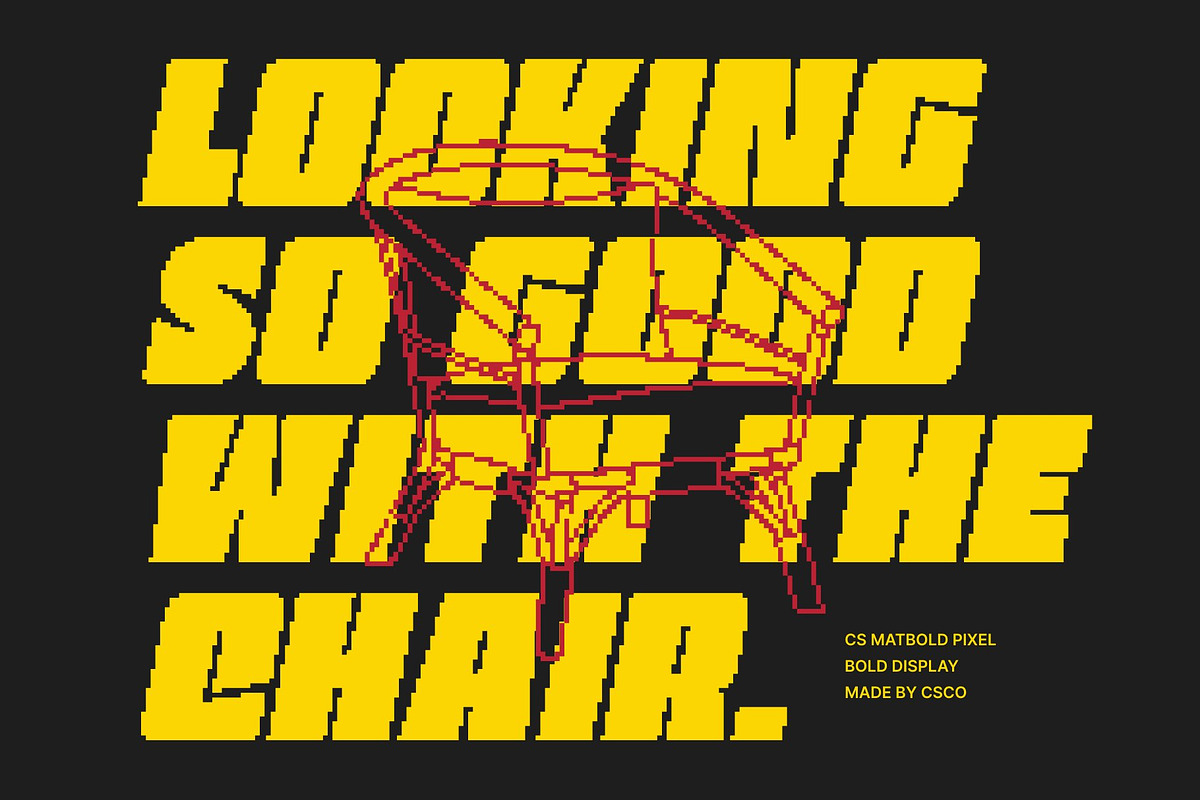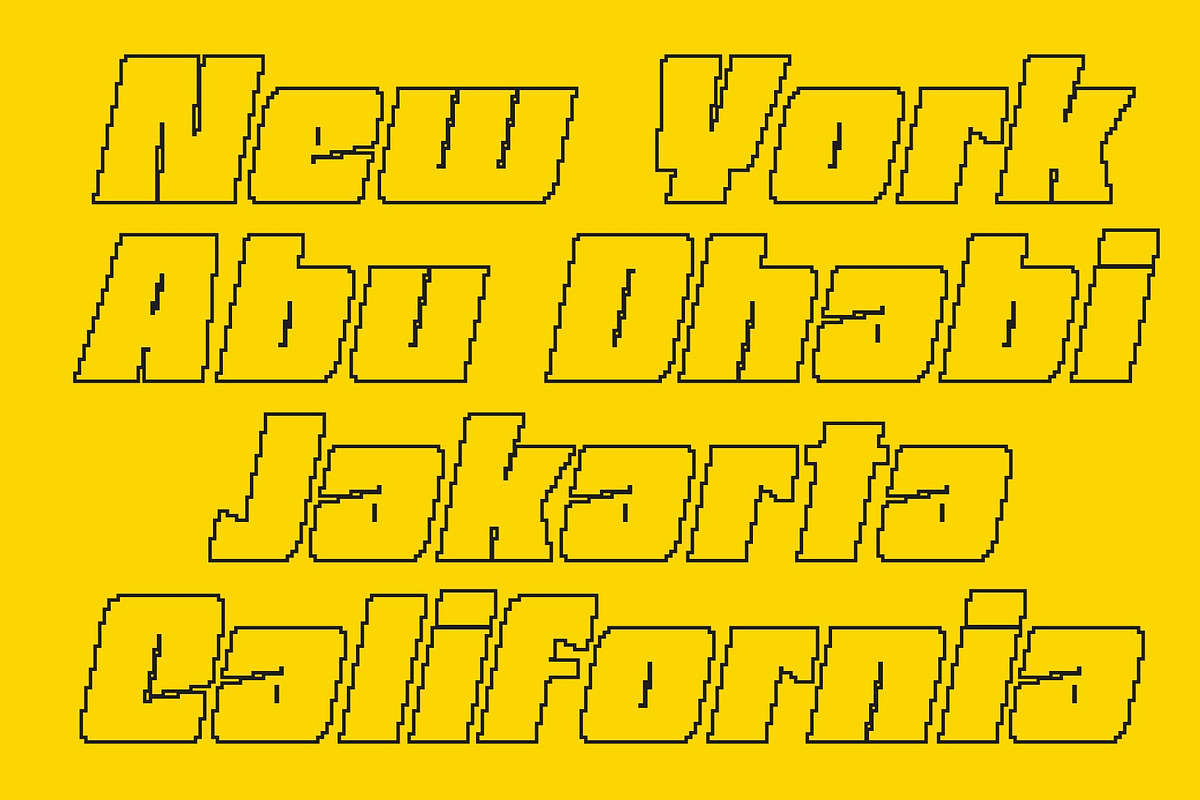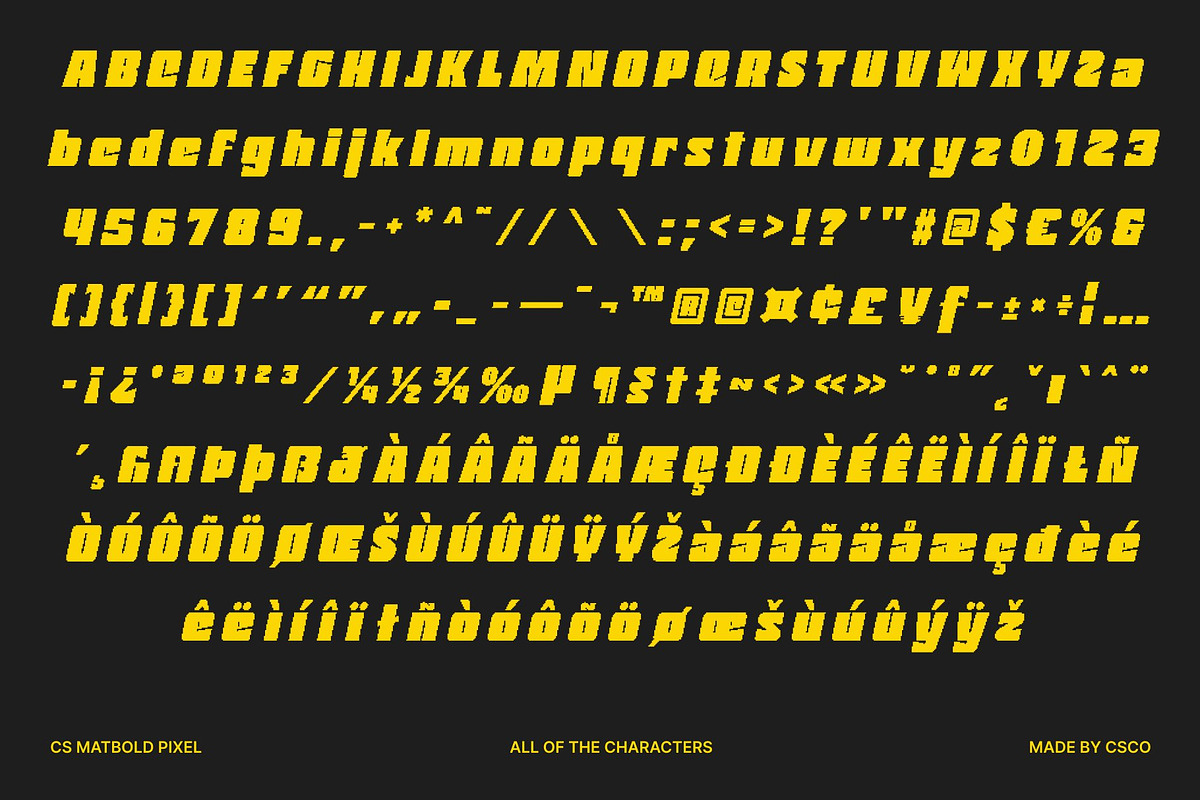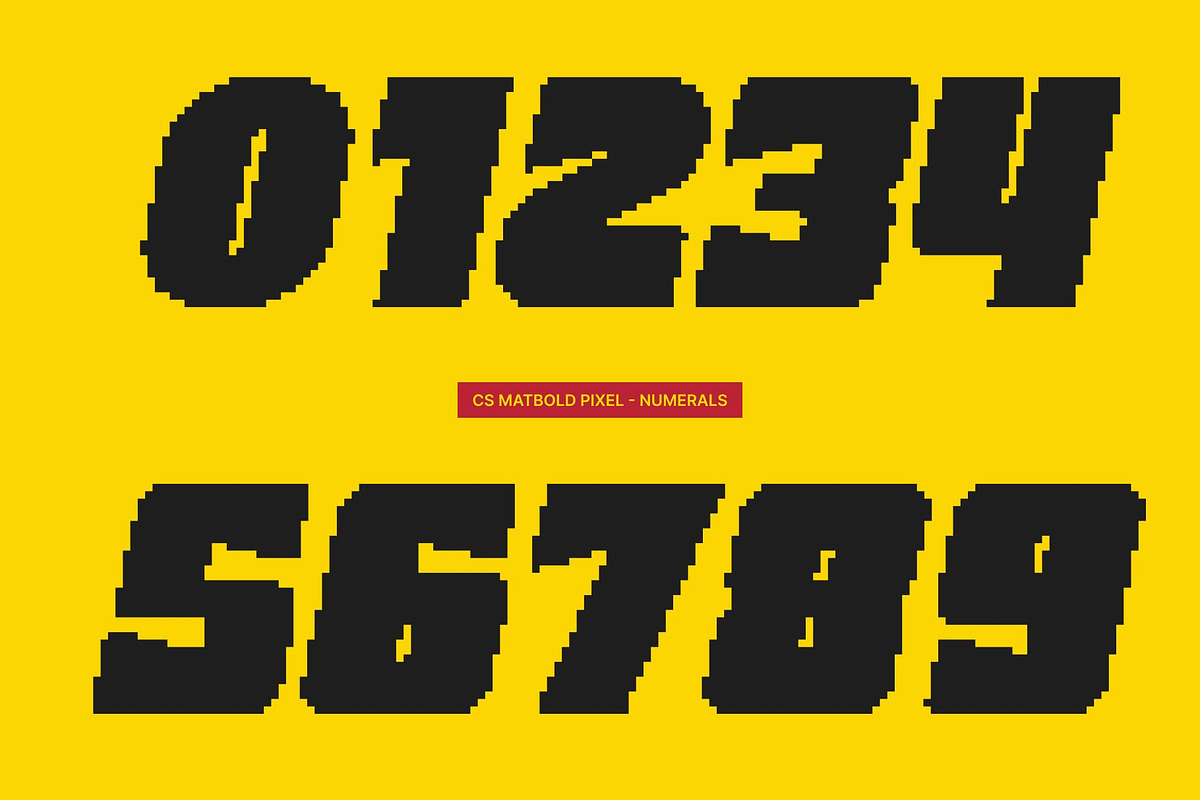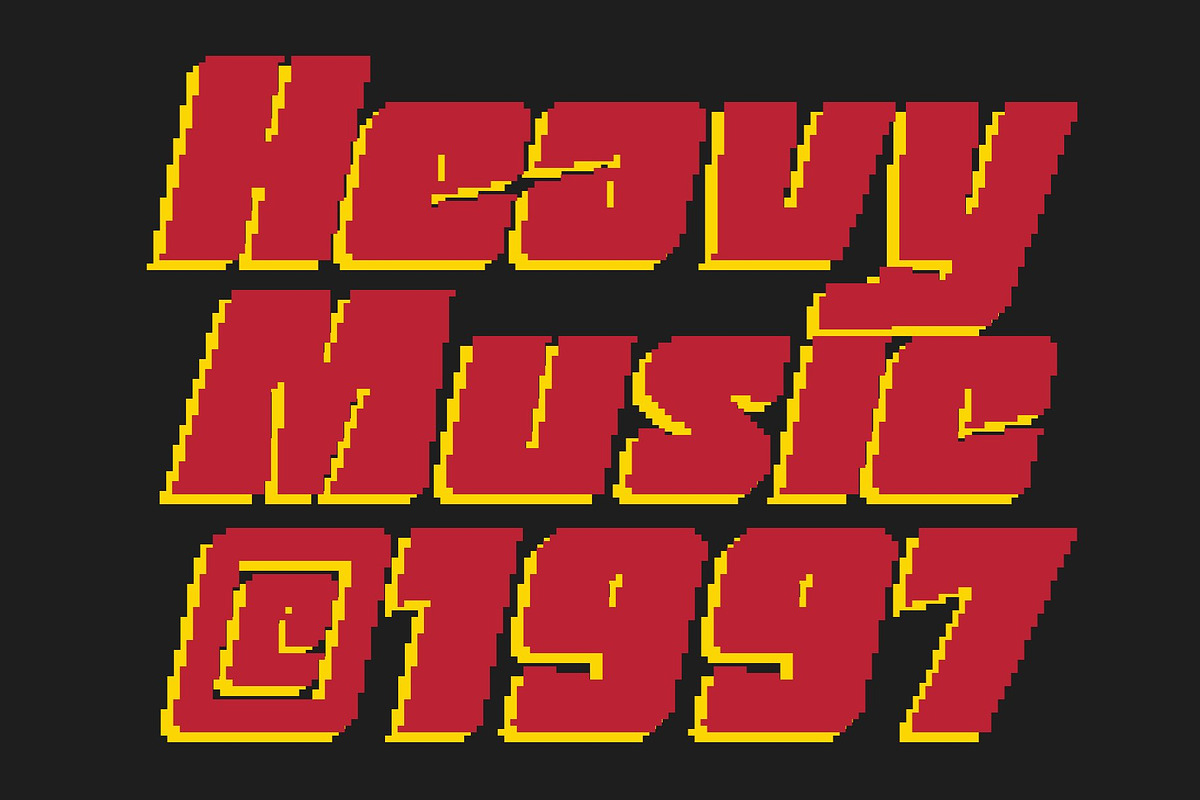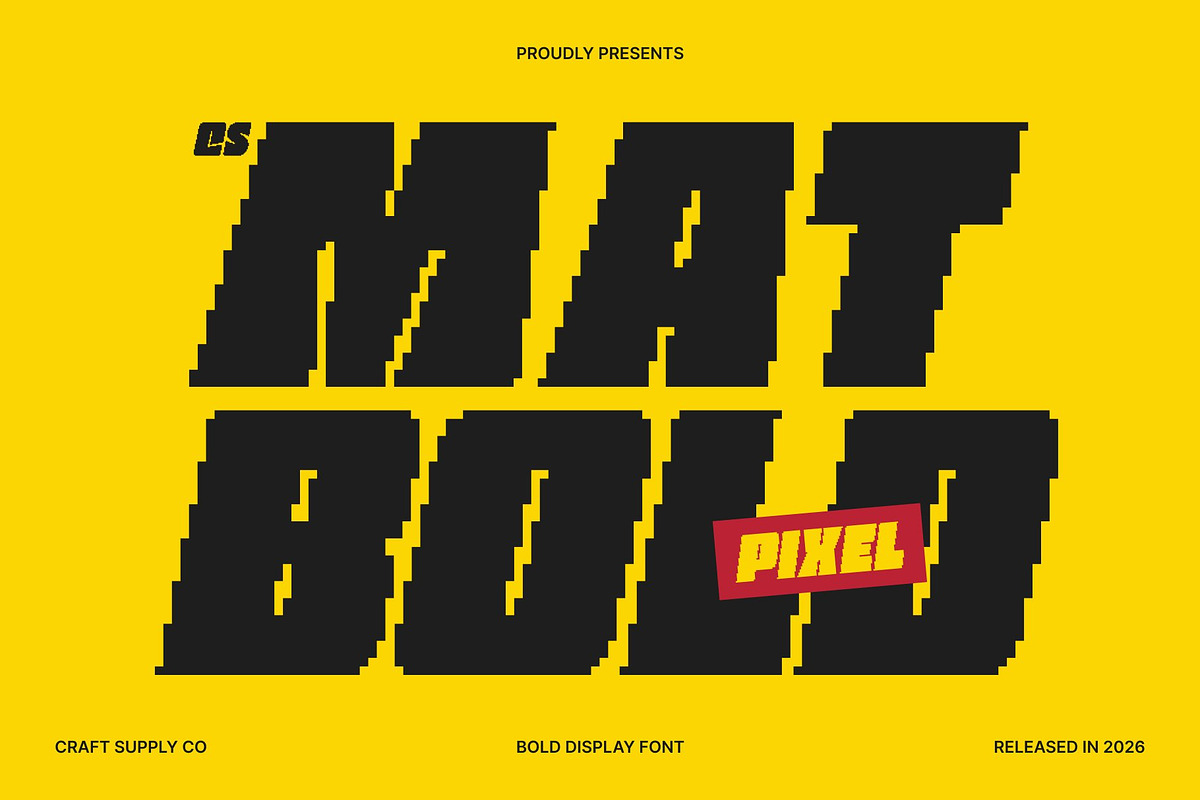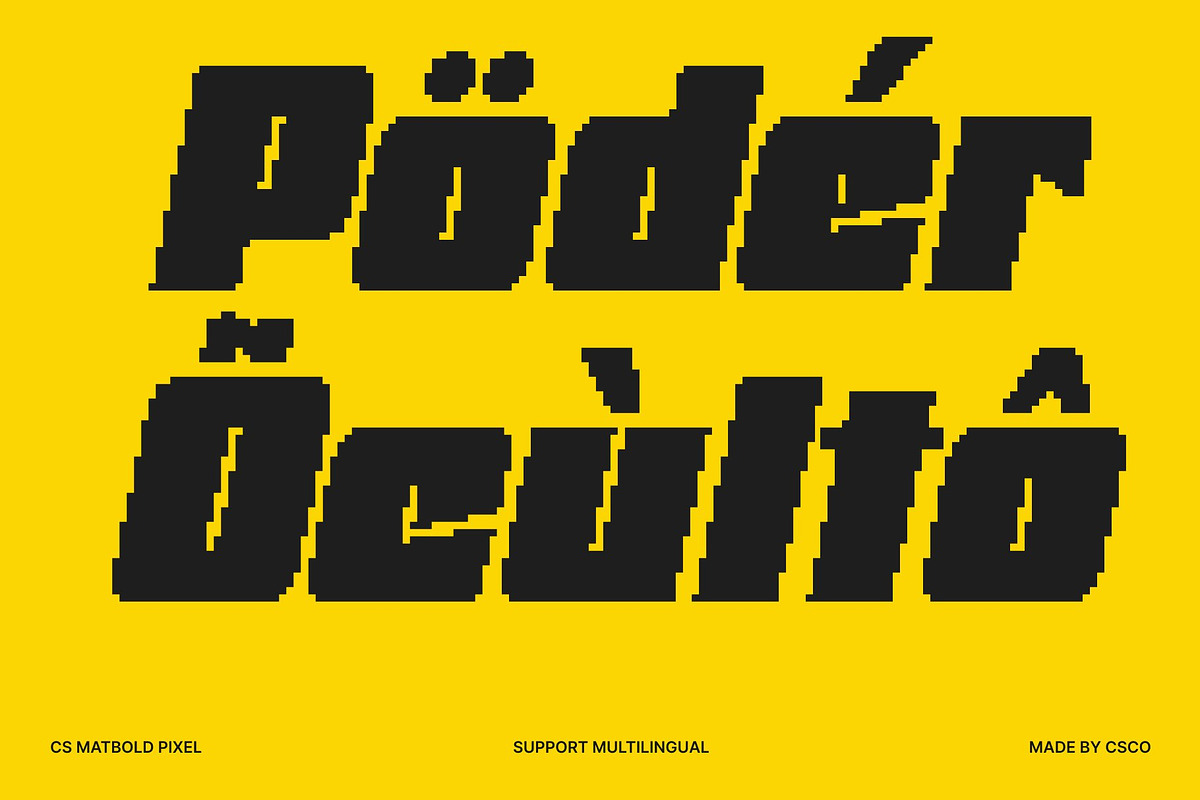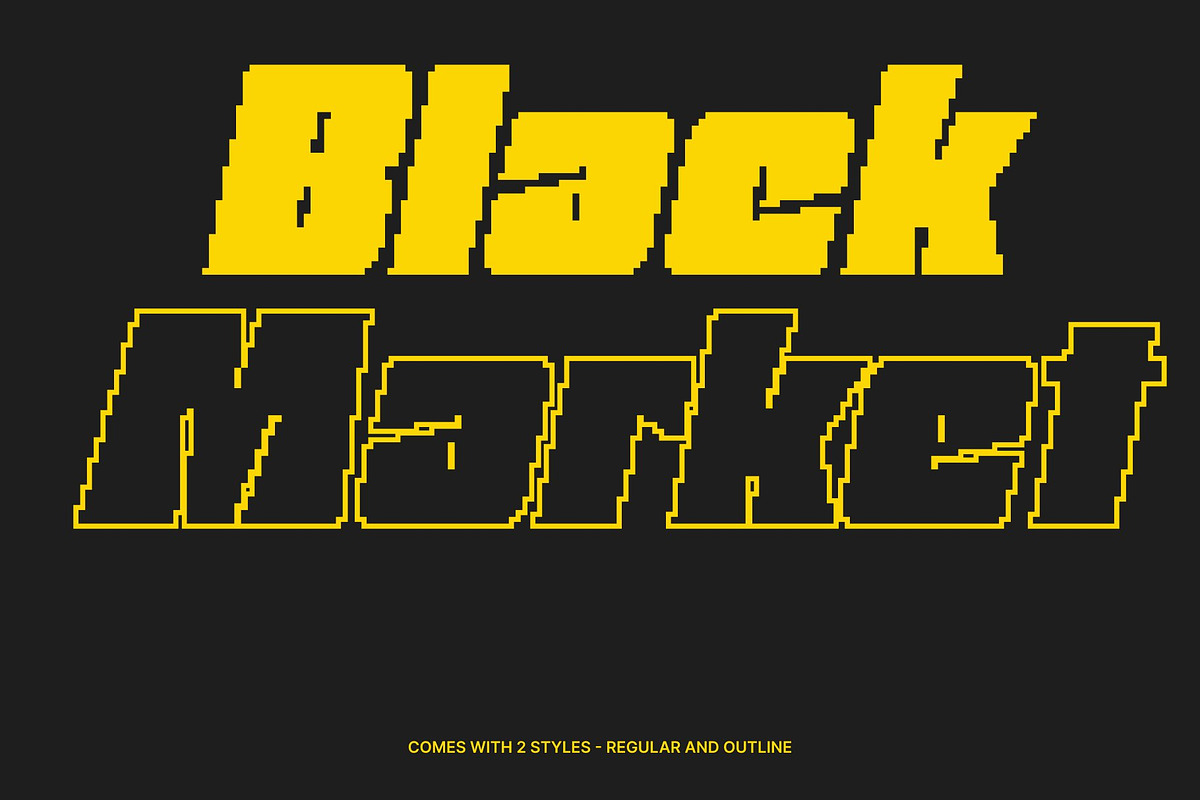
CS Matbold Pixel
CS Matbold Pixel – Futuristic Strength with Bold Impact
Modern Thick Font with Commanding Presence This is a bold sans serif font with thick, striking letterforms designed to capture attention instantly. Its solid construction and confident shapes convey strength, authority, and clarity, making it ideal for designs that demand high visibility and strong visual impact.
Futuristic Style Enhanced by Pixel Aesthetics Featuring sleek, modern geometry combined with a distinctive pixel style, this font brings a futuristic edge with a nostalgic digital twist. The pixel treatment adds a retro-tech feel inspired by early digital screens and old technology, while still maintaining a contemporary and forward-looking appearance.
Heavy Weight for Maximum Visual Impact The substantial weight of this font ensures excellent readability and a powerful presence, especially in large-scale display use. Its bold strokes deliver clarity and confidence, while the pixel structure enhances its eye-catching quality in digital environments.
Perfect for Digital, Retro-Tech, and Bold Branding This font excels in posters, headlines, logos, branding, games, and digital designs. The pixel style makes this font especially appealing for projects inspired by digital culture, futuristic themes, or old-school technology. It delivers a strong, modern, and unforgettable typographic statement that stands tall in any design.